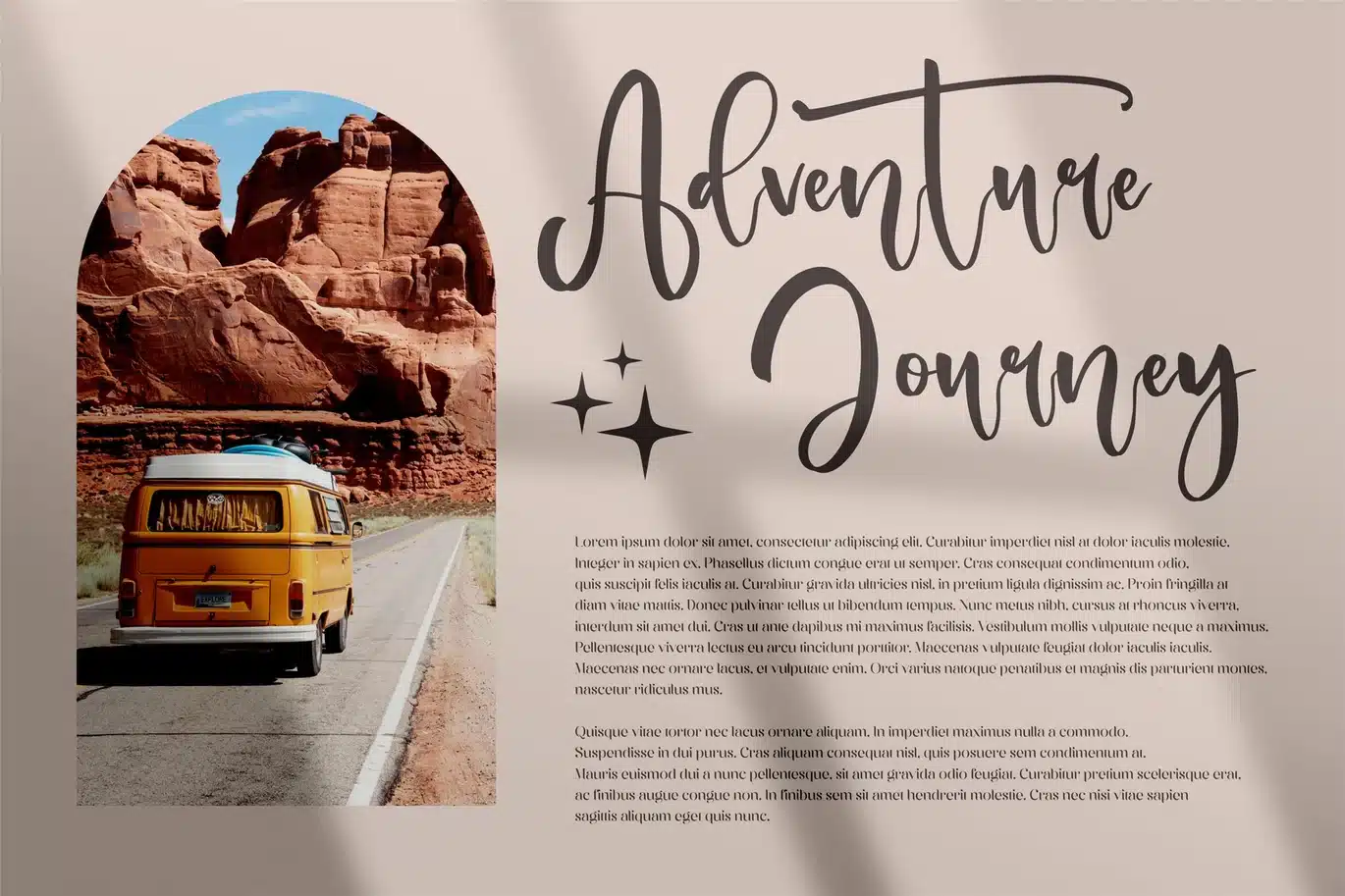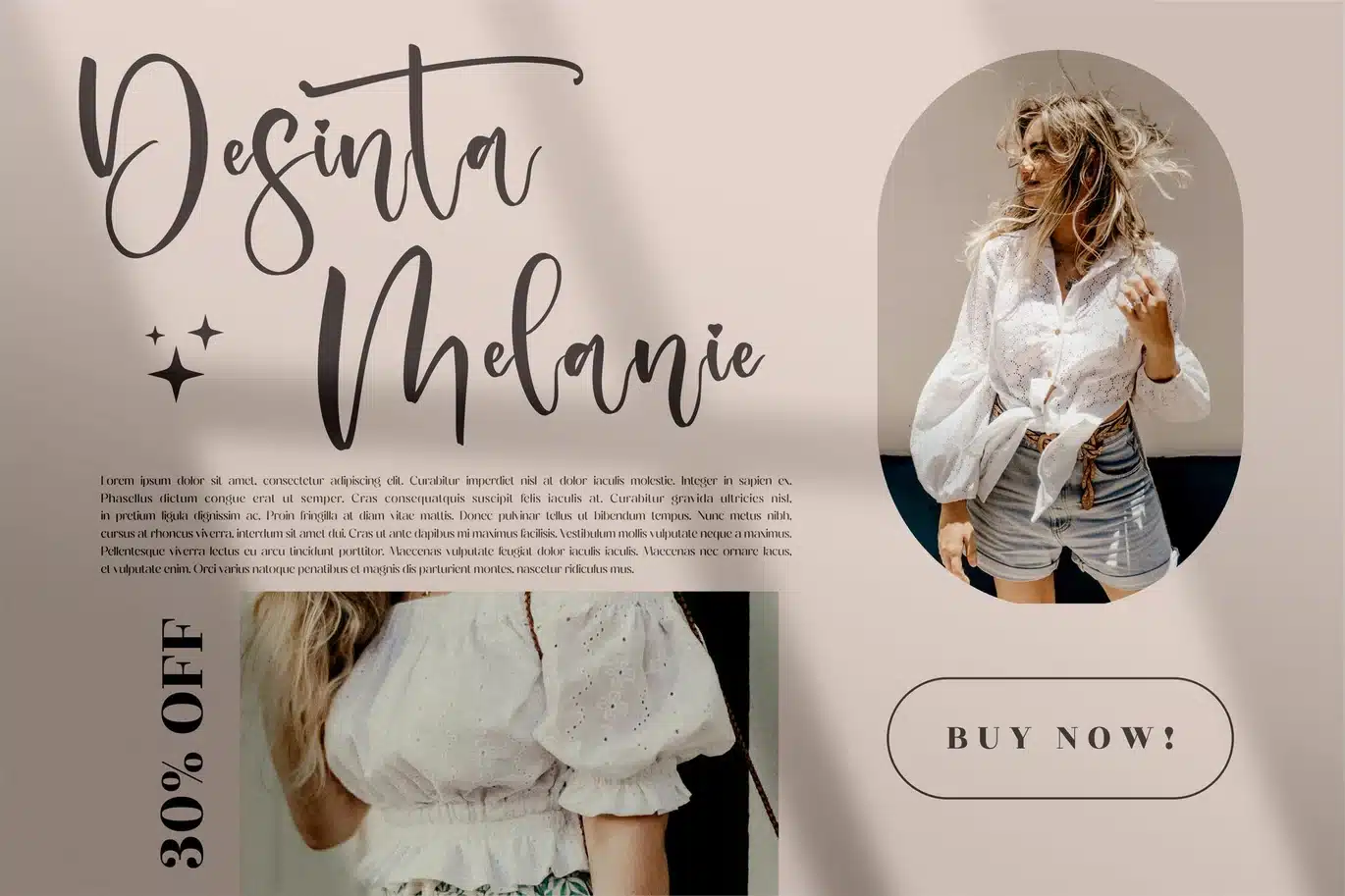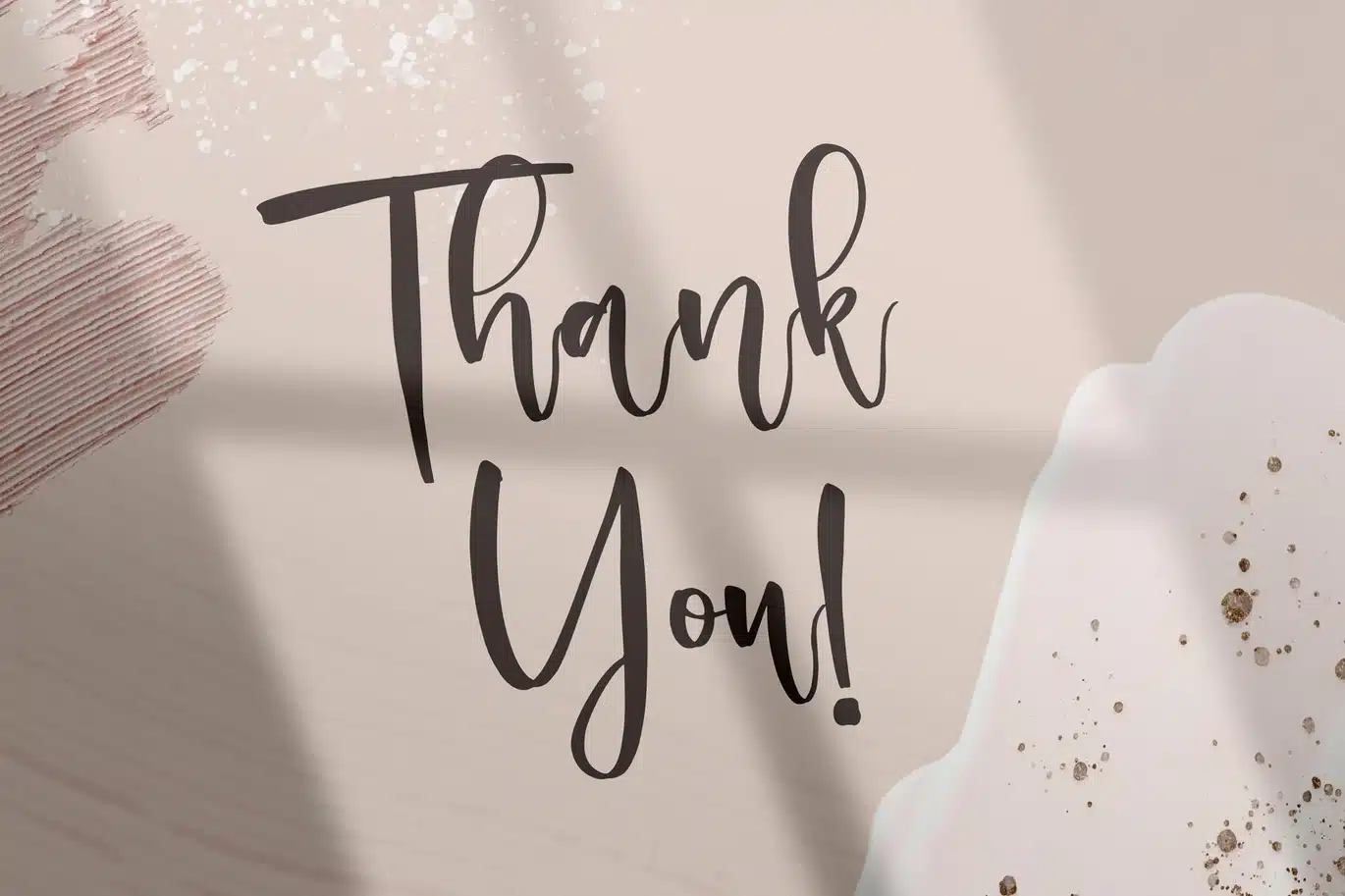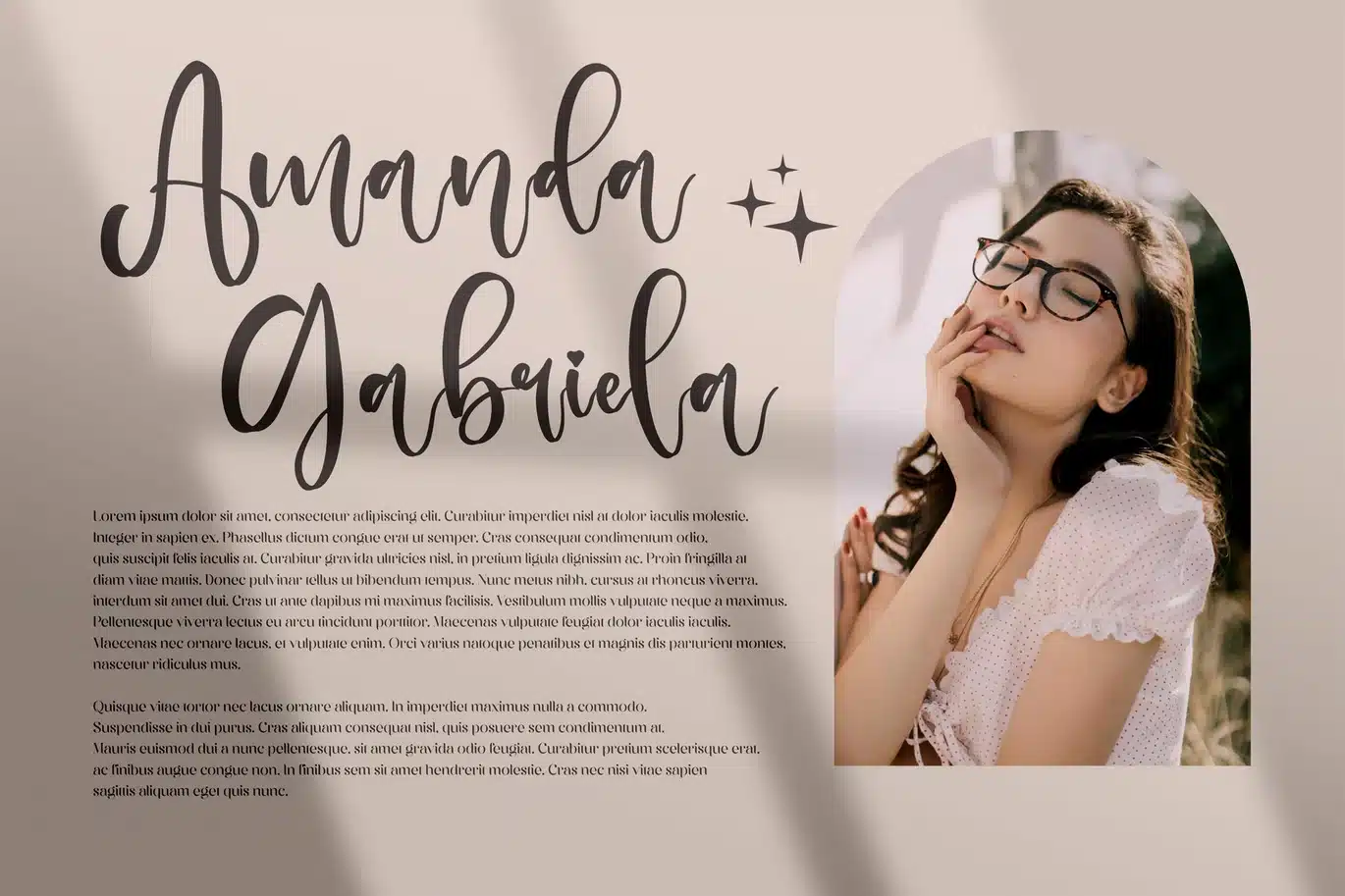
Delashanty Beautiful Script Font
Delashanty Beautiful Script is a graceful handwritten font designed with smooth strokes, modern flow, and a naturally elegant feel. With its expressive curves and delicate letterforms, this script typeface brings warmth and sophistication to any design. Perfect for creative projects that require a personal yet polished touch, Delashanty Beautiful Script enhances branding, invitations, social media posts, and digital compositions with effortless beauty.
- Smooth modern handwritten style
- Natural flowing letterforms with expressive curves
- Soft and elegant character shapes for a premium look
- Includes Regular and Italic styles
Perfect For:
- Wedding invitations & stationery
- Branding and personal identity design
- Elegant social media templates
- Product packaging & labels
- Creative digital projects
- Greeting cards & handwritten-style titles
- Posters, quotes, and promotional materials
Soft, expressive, and beautifully handcrafted — Delashanty Beautiful Script adds timeless elegance to every design.